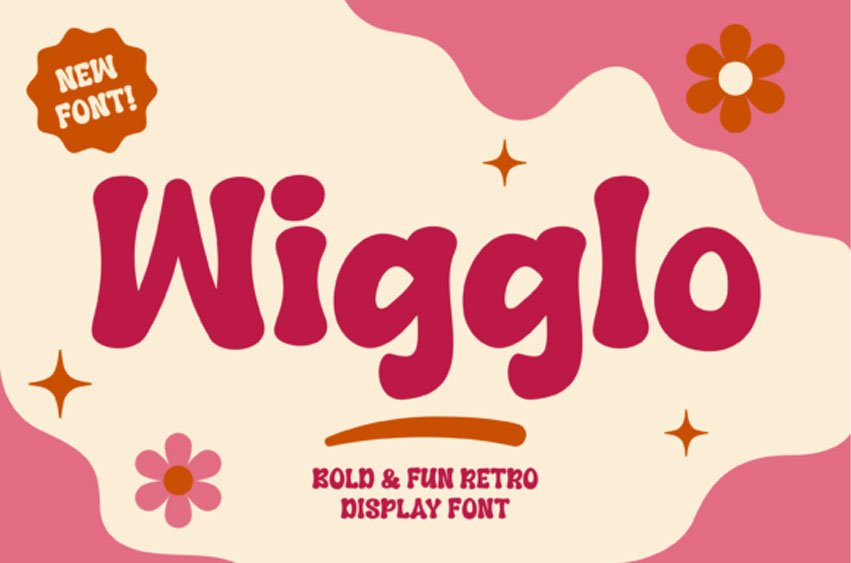
Wigglo Font
Wigglo Font is a bold and fun retro display font with a groovy, cheerful, and playful personality. Inspired by vintage aesthetics and funky typography, this font features thick rounded shapes and smooth curves that instantly create a nostalgic yet modern vibe.
Its eye-catching style makes Wigglo perfect for retro branding, posters, packaging, social media graphics, café menus, stickers, apparel, album covers, kids projects, and creative designs that need a vibrant and energetic touch.
Wigglo combines retro charm with bold readability, making every design feel lively, stylish, and full of character.